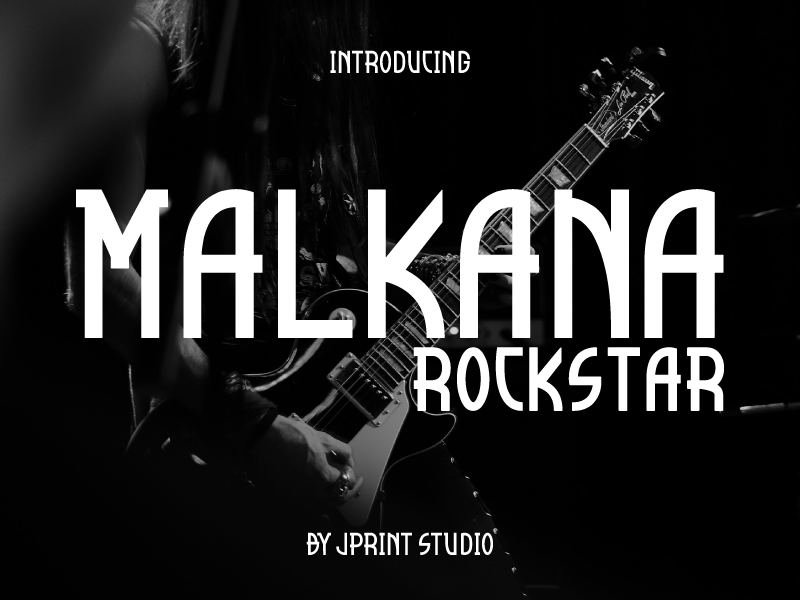
Font name: | Malkana |
Author: | Gais Zaelani |
Introducing Malkana, Malkana is inspired by classic typography and brings its own unique style to any design project. It will take your designs to the next level! Ready to use for projects, texts, letters, or whatever you want! NOTE: This demo font is for PERSONAL USE ONLY! But any donation are very appreciated. Paypal account donation: https://www.paypal.me/jprintstudio Link to purchase full version and commercial license : https://www.creativefabrica.com/product/malkana/ref/237608/ And follow my Dribble for Update : https://dribbble.com/GaisZ |